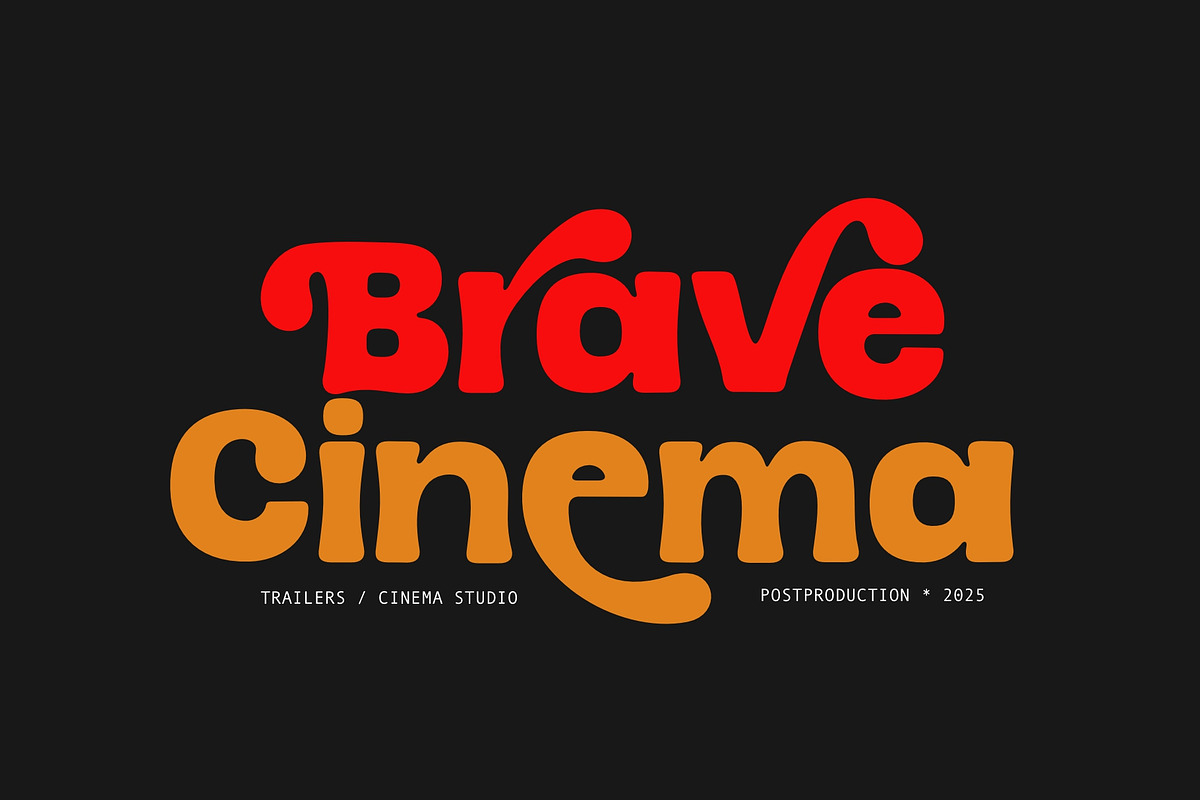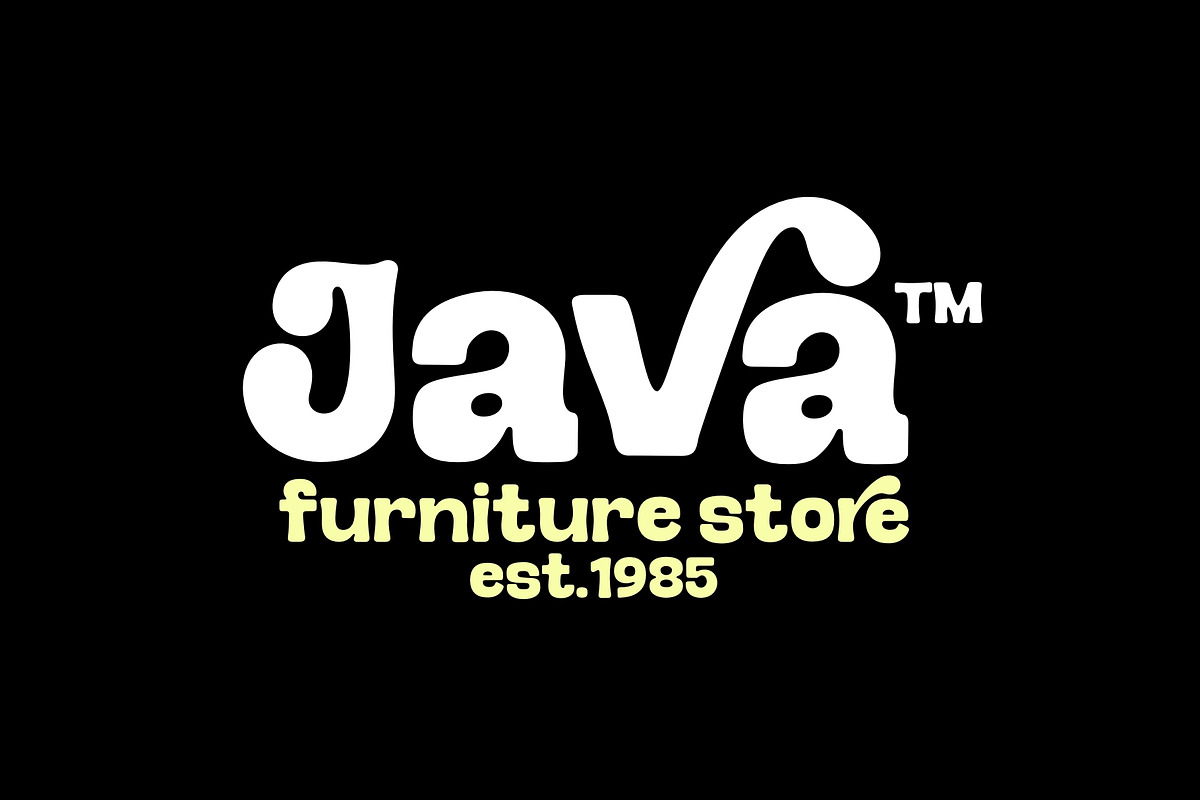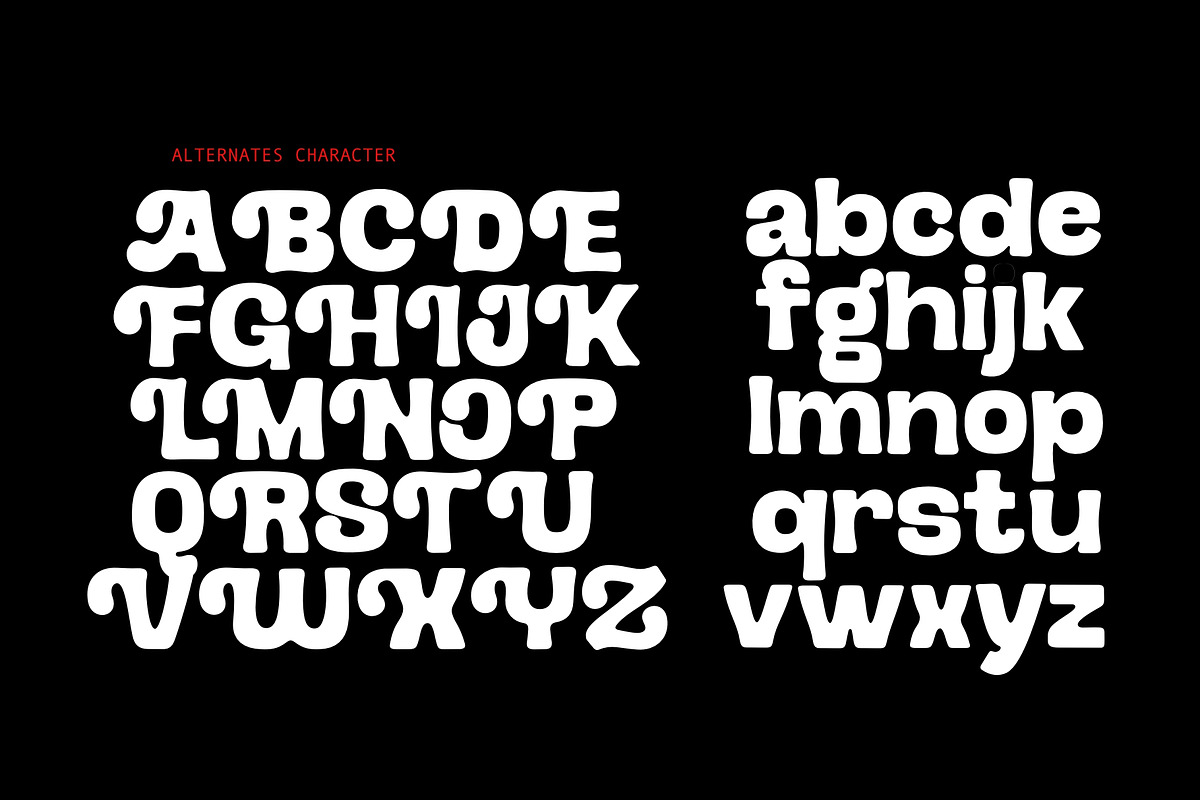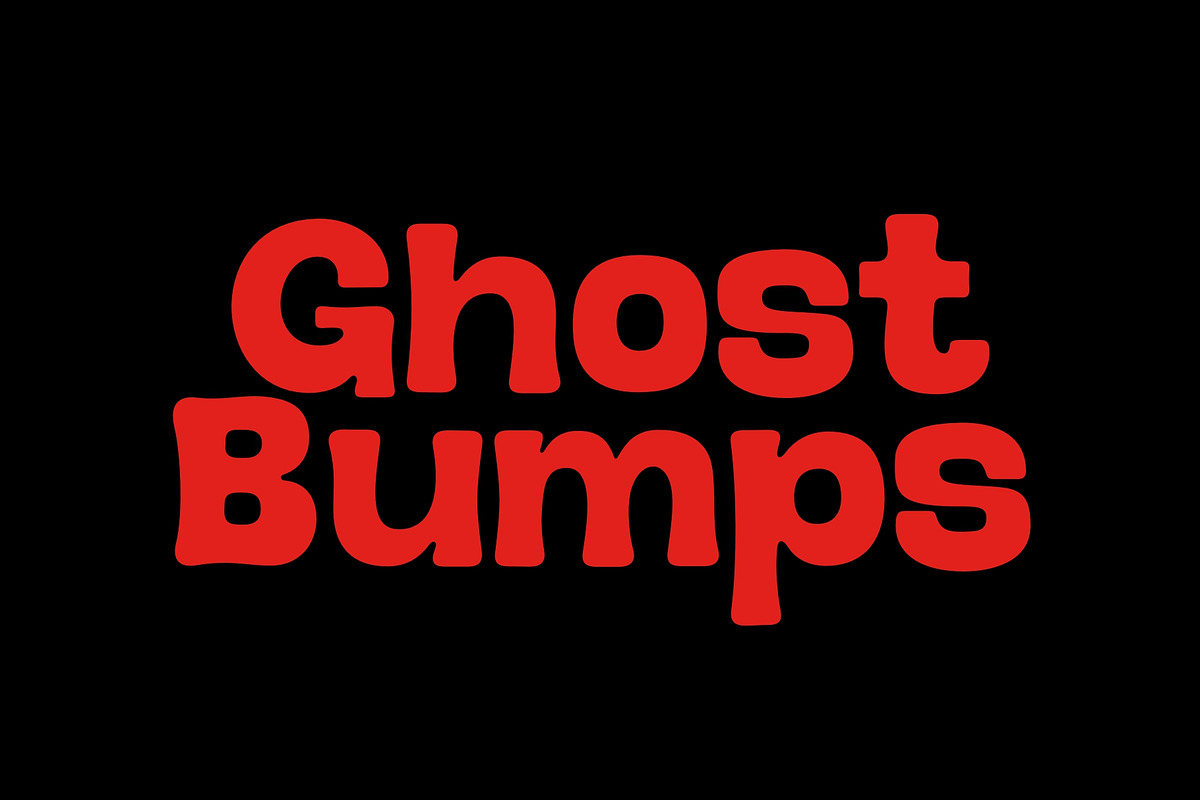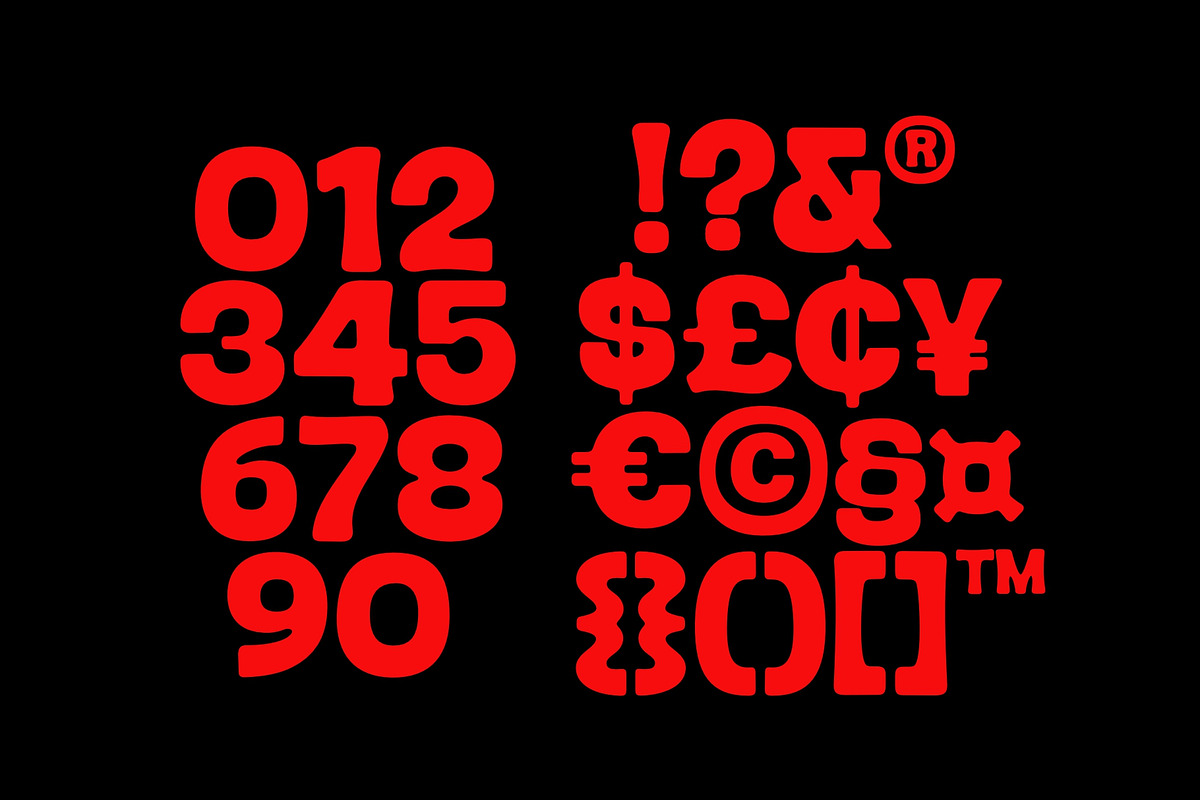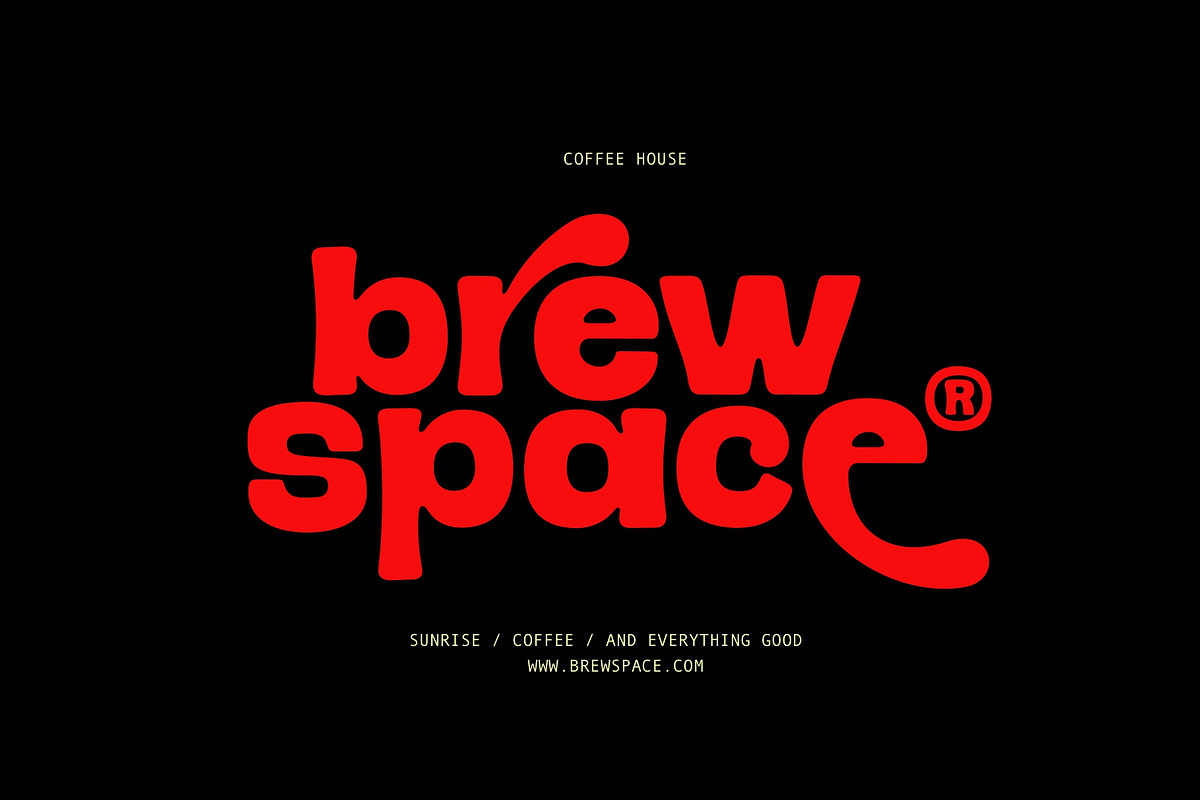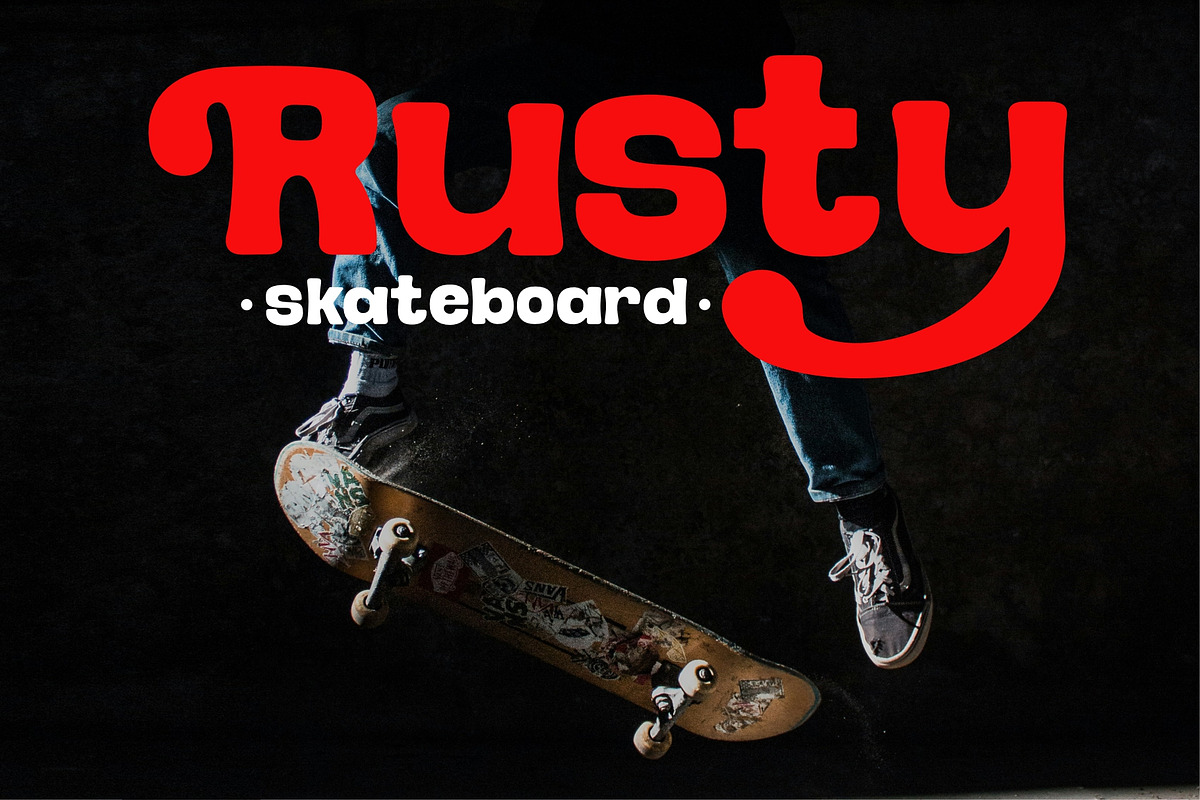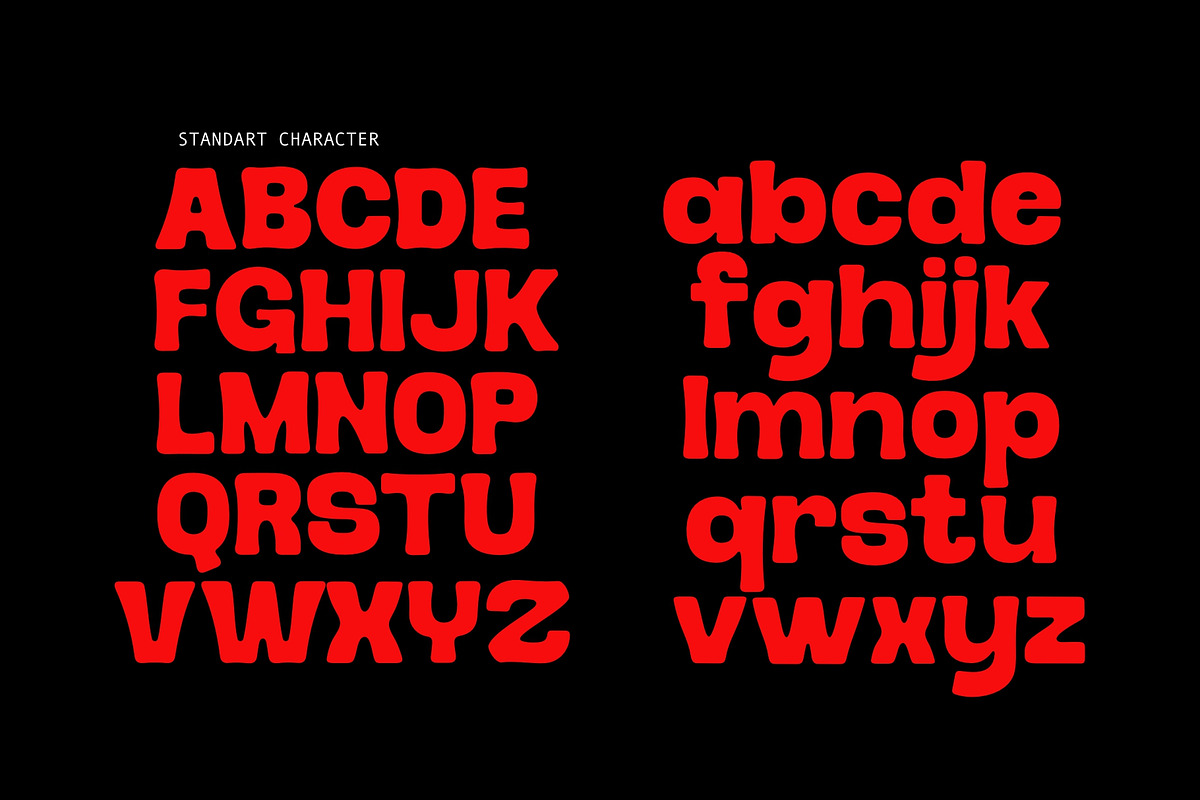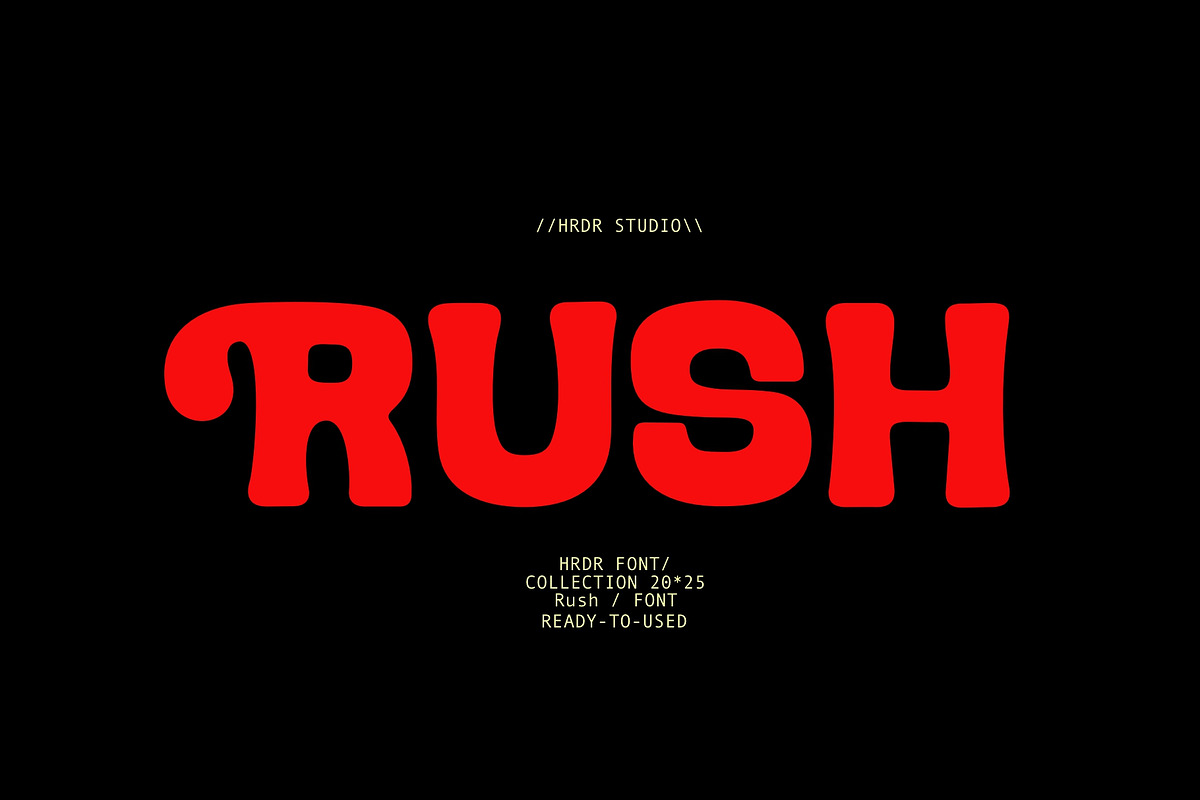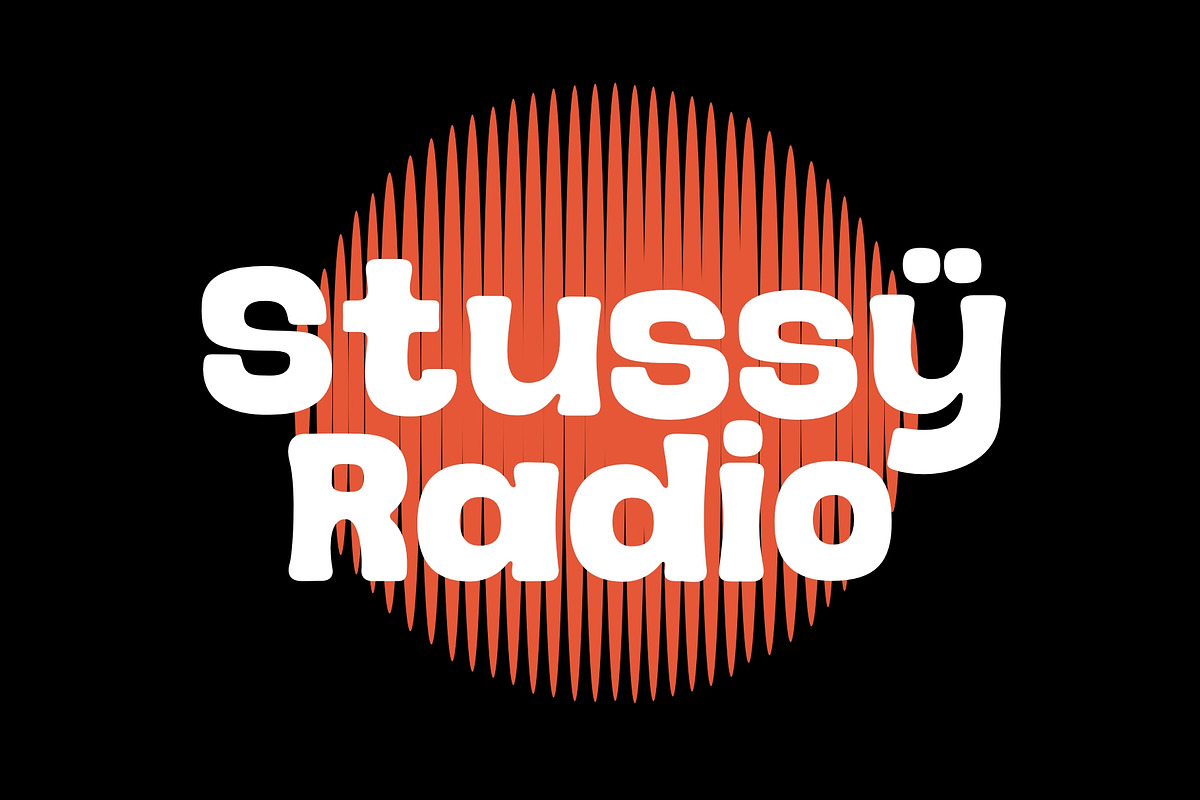
Rush
Rush is a modern type style that is perfect for logos, branding , film, apparel, motion graphic, logotype, signage, flyer, packaging and more. This font brings a strong feel yet elegant look that you can use for many purposes.
- numeric & Multilingual support
- Standart Ligatures
- Stylistic Alternates with Ss01, Ss02, Ss03